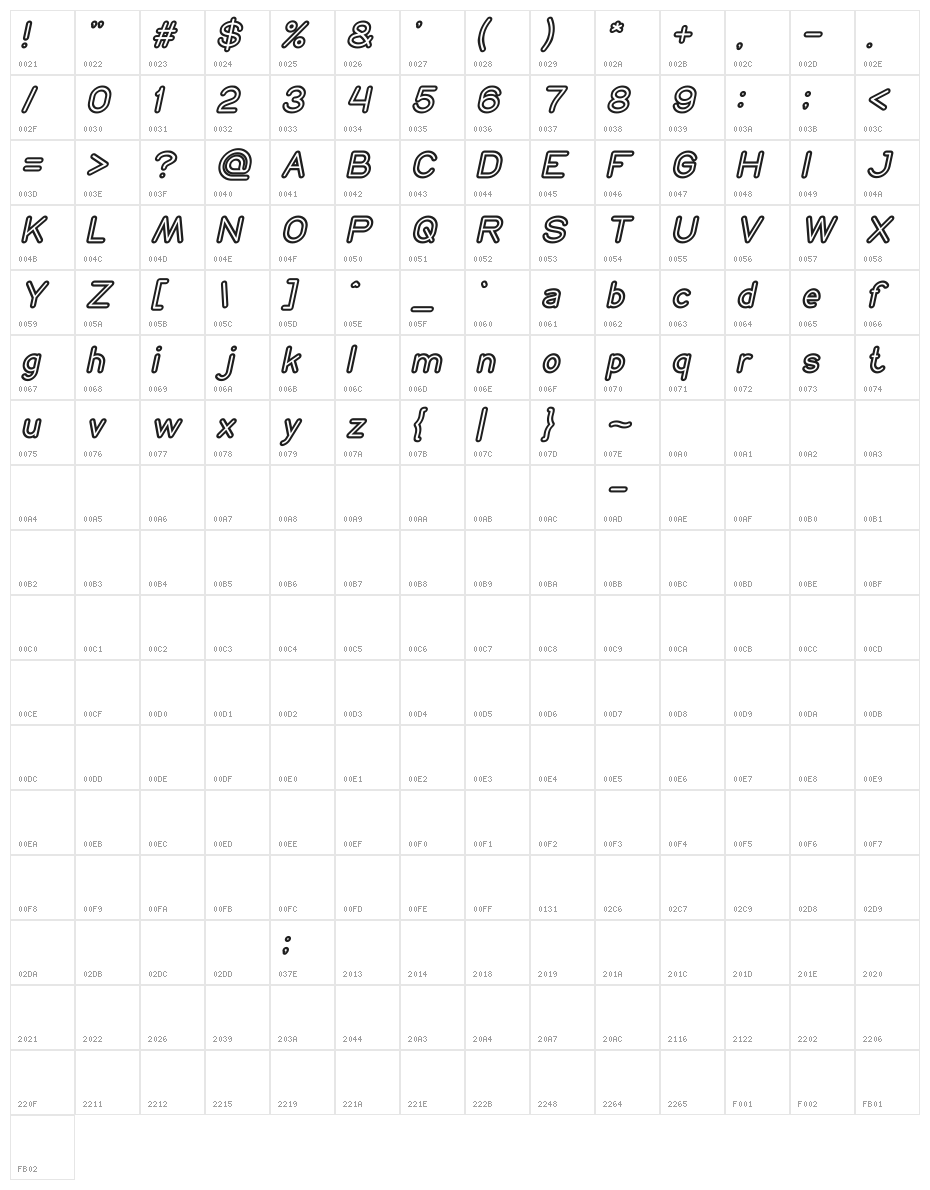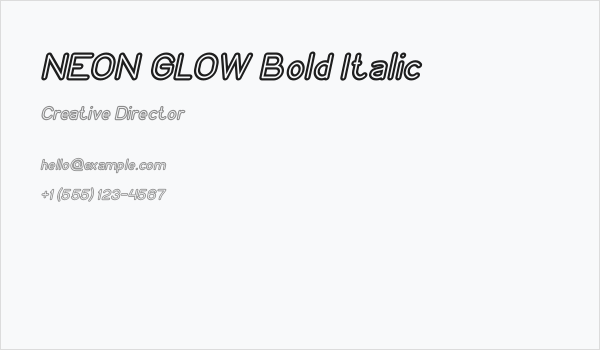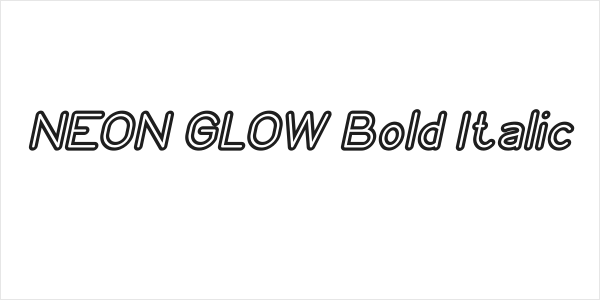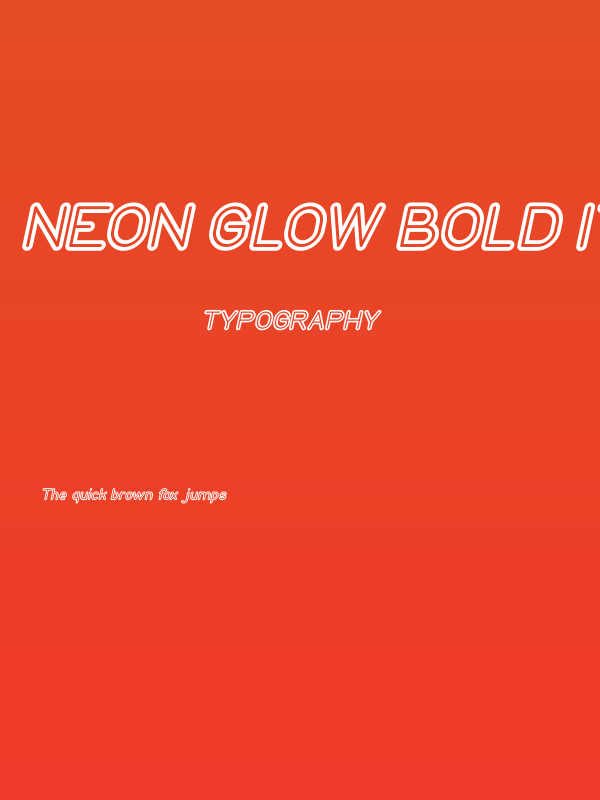
NEON GLOW Bold Italic Font
NEON GLOW Bold Italic Description
This font features a bold and italic style with a distinctive neon glow effect. The characters are outlined, giving them a three-dimensional appearance that mimics the look of neon signage. The uppercase and lowercase letters maintain a consistent style, with rounded edges and a smooth flow. Numbers and special characters are equally bold and maintain the same glowing outline, ensuring uniformity across all glyphs. This font is eye-catching and designed to stand out, making it ideal for projects that require a modern and vibrant aesthetic.
Proposed ProjectsIdeal for neon-themed designs, signage, posters, and digital media that require a striking and modern look.